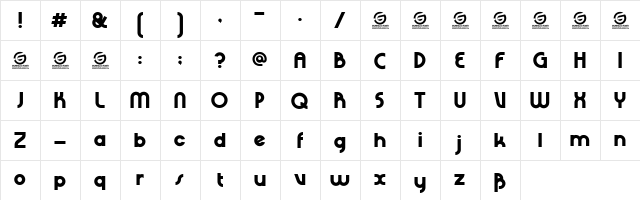
Rhino Sans Personal Use Regular
| Foundry | Mathias Guaraldo |
| Designer | Mathias Guaraldo |
Design Context for Rhino Sans Personal Use Typeface
Rhino Sans Personal Use offers clean, dependable letterforms without strong stylistic allegiance, making it a practical choice for designers who need flexibility.